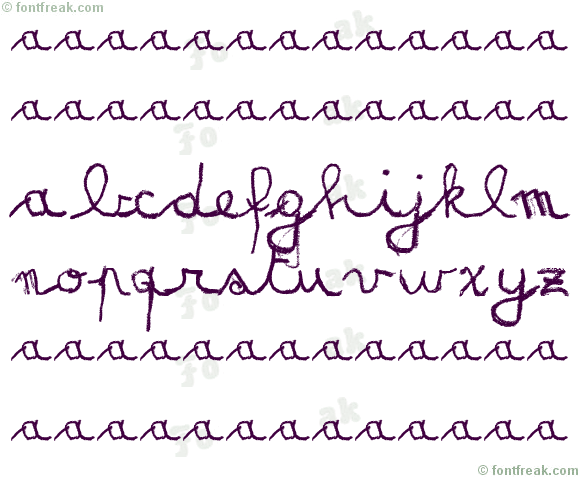
MATILDAS GRADE SCHOOL HAND_DEMO_script
MATILDAS GRADE SCHOOL HAND_DEMO_script is a charming handwritten script typeface from Fonts and Fashion, perfect for adding a personal touch to your designs. This font embodies a playful, youthful vibe, making it an excellent choice for projects aimed at children or those evoking nostalgia. The stroke weight is consistent, providing a friendly and approachable aesthetic, while the slight variations in letterforms add a hand-crafted feel. The spacing is generous, ensuring readability while maintaining a casual appearance, which enhances its decorative quality.
This font is particularly well-suited for a variety of creative projects. It shines in applications such as children's book covers, where its whimsical nature can capture the imagination of young readers. Additionally, MATILDAS GRADE SCHOOL HAND_DEMO_script is ideal for wedding invitations, lending a touch of elegance and warmth to the occasion. Restaurant menus can also benefit from its inviting style, making the dining experience feel more personal and welcoming. Furthermore, small business branding, especially for enterprises targeting families, can leverage this font to create a friendly and relatable image.
The target audience for this font includes graphic designers looking to infuse their work with a playful element, small business owners seeking a distinctive brand identity, and content creators who want to engage their audience with a unique style.
What sets MATILDAS GRADE SCHOOL HAND_DEMO_script apart is its versatility and charm. It captures the essence of handwritten communication, making it a delightful choice for anyone wanting to convey authenticity and warmth in their designs. With the MATILDAS GRADE SCHOOL HAND_DEMO_script font free download, you can easily incorporate this delightful typeface into your creative projects and elevate your design work.